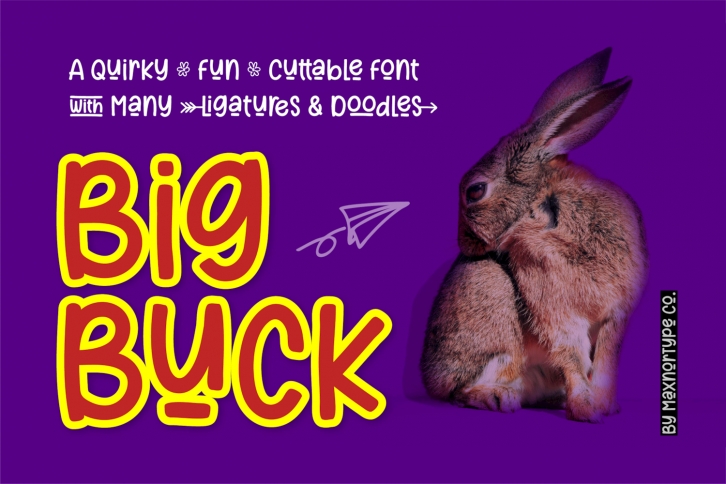
BigBuck is a trendy and unique font with an authentic style. It was designed by MaxnorType and it's a great choice for creative people who need such a font. It was released on August 16, 2019 and the file size is 2.44 MB. BigBuck will add an organic vibe to any design idea!